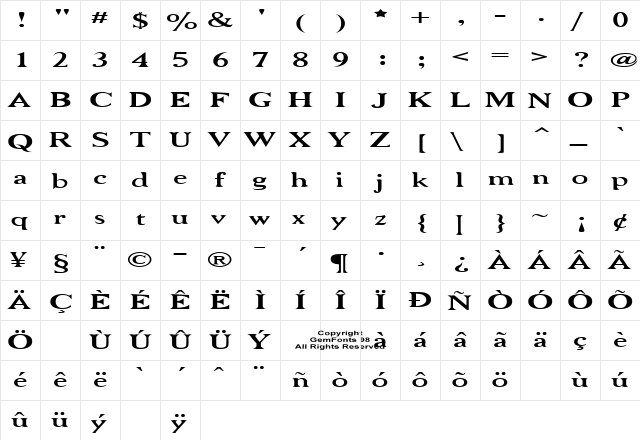
Niew CroMagnon Wide Regular
Design Context for Niew CroMagnon Wide Typeface
Niew CroMagnon Wide takes a measured approach to typography — its balanced proportions and neutral character make it a reliable workhorse for both digital and print work.